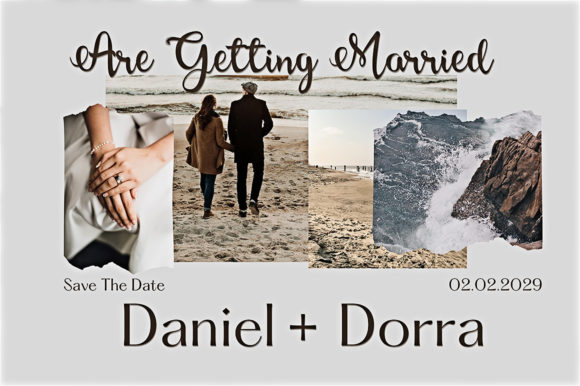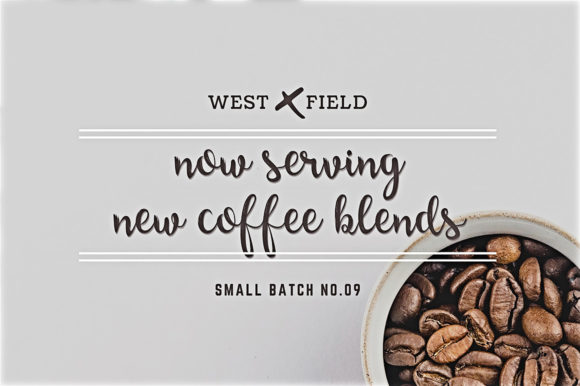
Natasha Font
db-ku.com - Script & Handwritten -- Natasha is a simple, unique, and easy-to-apply script font. You can add this elegant font to wedding invitations, business cards, greeting cards, and various other ideas. Your options with this font are limitless!